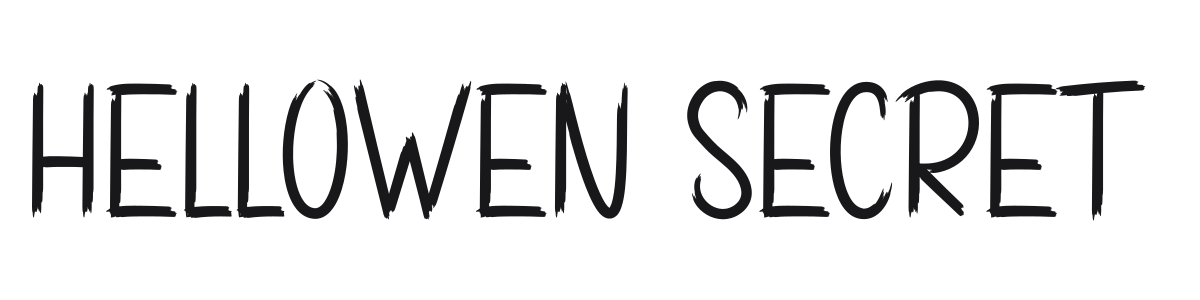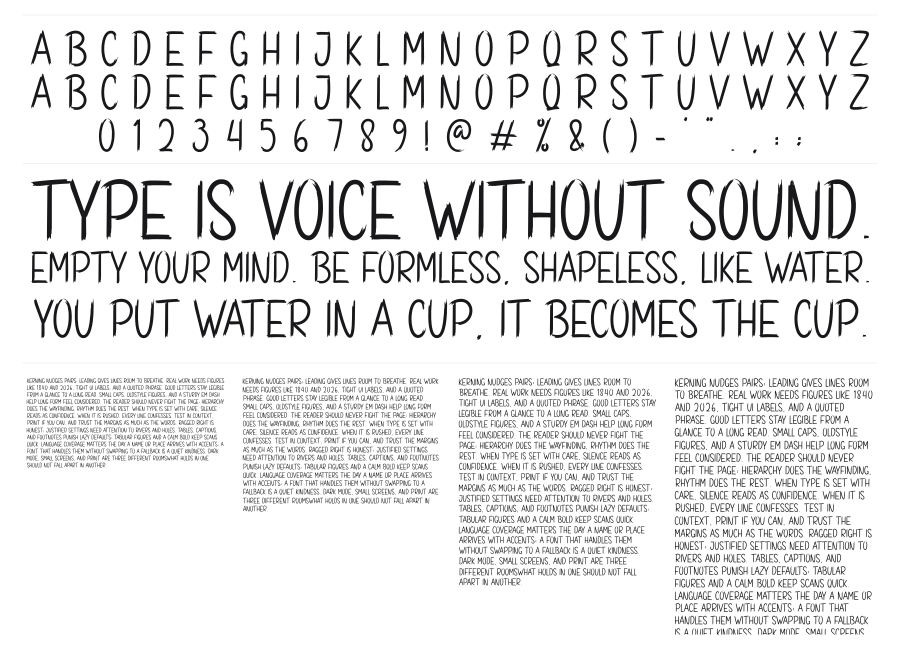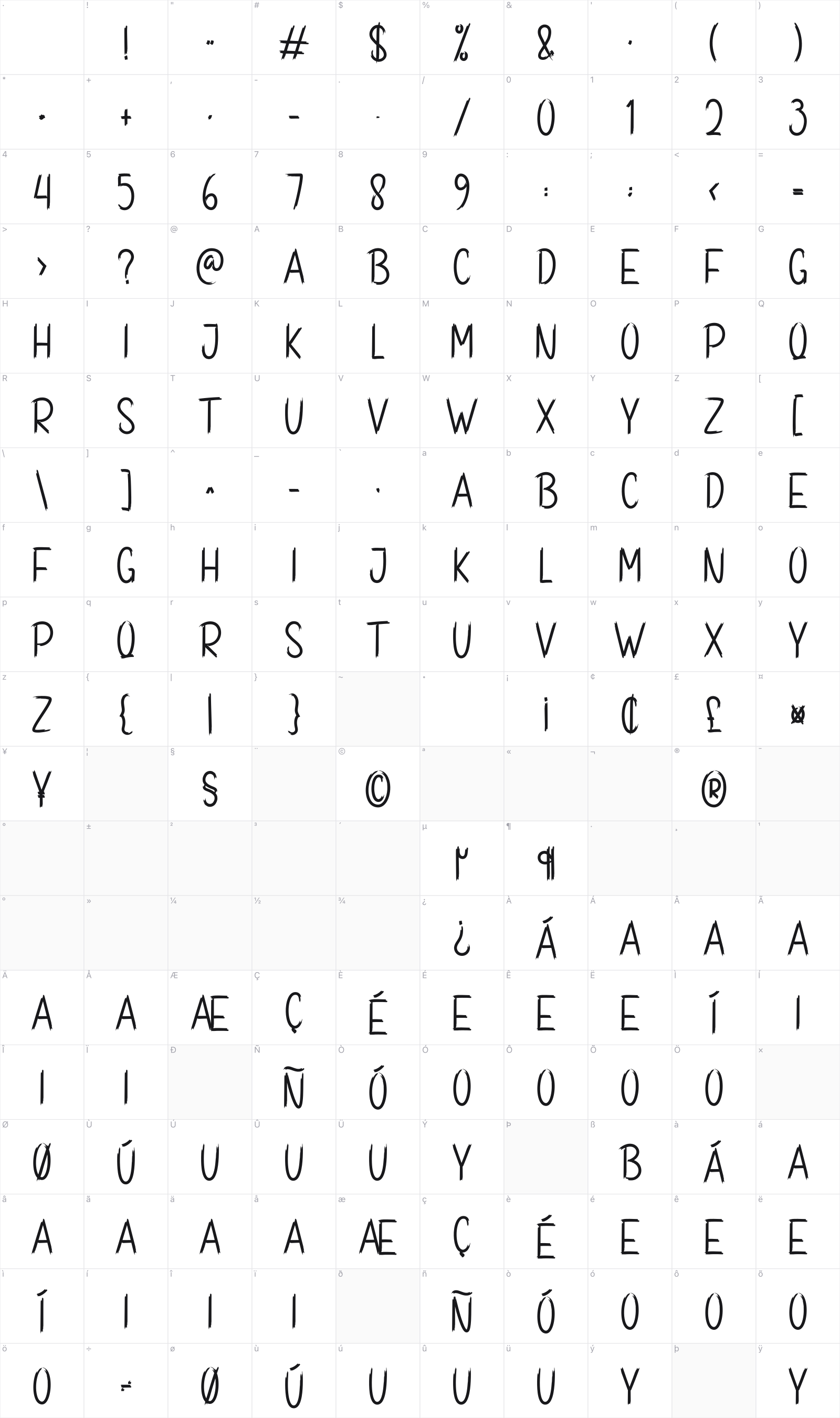
Hellowen Secret
Hellowen Secret is a casual handwritten display font with tall, narrow proportions and lightly textured brush strokes. The rough-edged characters carry a spontaneous, hand-lettered energy that reads as both friendly and a little wild. It suits wedding stationery, greeting cards, and any project that needs warmth with an edge.